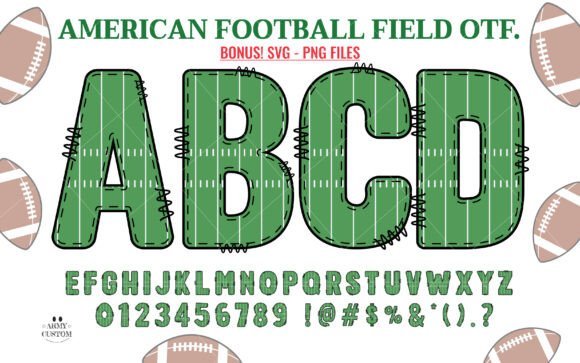
The Perfect Play: Unveiling the American Football Field Font
Imagine you’re sitting in the stands on a crisp autumn Sunday, surrounded by the electric atmosphere of a live football game. The crowd is cheering, the players are diving, and the referee is blowing his whistle. As you scan the field, your eyes land on the bold, dynamic letters that spell out the game’s name – that’s where the magic of the American Football Field Font comes in.
Designed to capture the essence of America’s favorite sport, this font is more than just a typographical style – it’s a visual representation of strength, agility, and unyielding spirit. For designers, the American Football Field Font is a valuable tool, offering a unique way to add a touch of athleticism and competition to any project. Whether you’re creating a sports-themed logo, a game-day graphic, or a sports-inspired design, this font is sure to score a touchdown with your audience.
- Unique Characteristics: The font features a unique, bold design that mimics the look of a classic American football field, complete with yard lines, goalposts, and a distinctive grid pattern.
American Football Field Font Review
Overall, I think the American Football Field Font has some great elements, but it falls short in a few areas. Let’s dive in!
- ✨ Unique Design: The font’s use of bold lines and numbers that resemble a football field is a great touch. It’s definitely eye-catching and will grab the attention of football fans.
- ✨ Customizable: The font is available in various styles and sizes, making it easy to use in different design projects.
- ⚠️ Limited Use Cases: While the font is great for football-related designs, it might not be the best choice for other types of projects. Its use of football field elements might be distracting or overwhelming in certain contexts.
- ⚠️ Limited Character Set: The font’s character set is limited, which might make it difficult to use in certain situations where you need to display a wide range of characters.
While the American Football Field Font has some great features, its limitations might make it a bit too niche for some designers. However, if you’re working on a football-themed project, this font is definitely worth considering.
For the most out of the American Football Field Font, use it in sports-themed designs, such as team logos, scoreboards, and stadium signage. You can also use it in educational materials, such as textbooks and lesson plans, to add a fun and engaging touch.